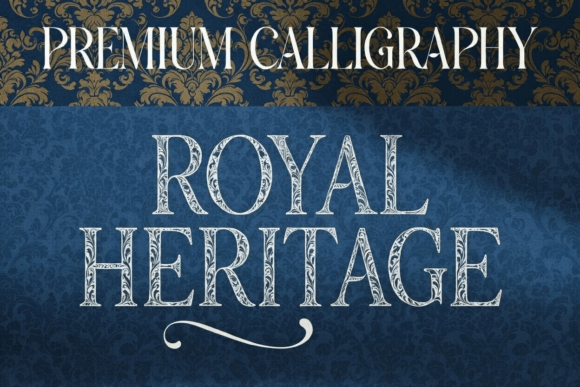
Introduction to Royal Heritage Font
Introducing Royal Heritage, a breathtakingly intricate display font that exudes elegance, luxury, and classic charm.
This vintage-inspired serif font features stunning, highly detailed floral filigree patterns woven into every letter It is the perfect choice when you need a typography element that commands attention and adds a premium, antique feel to your artwork.
Why Choose Royal Heritage Font?
Royal Heritage Font offers exceptional quality and versatility, making it a valuable addition to your design toolkit. Whether you’re creating for personal projects or commercial use, Royal Heritage Font delivers professional results.